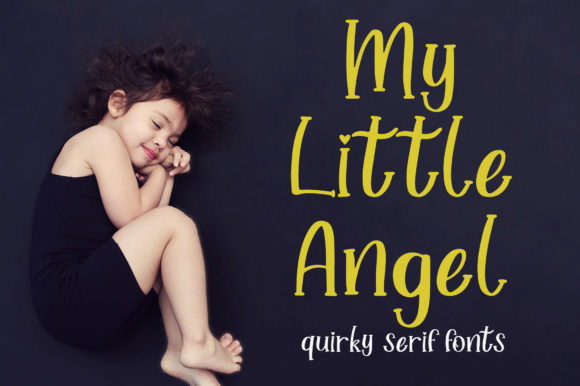
Journey into a world of whimsical enchantment with My Little Angel Font, a captivating script font brimming with undeniable charm. Experience the allure of its graceful curves and playful strokes that dance across your screen, evoking a sense of childlike wonder and unbridled imagination.
Crafted with meticulous precision by the talented hands of Choirulcreator, My Little Angel embodies the essence of enchanting boat lettering. Its elegant flourishes and whimsical details add a touch of maritime magic to any design, leaving an undeniable impression on all who behold it.
Whether you're a seasoned designer or just starting your creative adventure, My Little Angel Font will elevate your projects to new heights of artistry. Its effortless versatility makes it the perfect choice for a wide range of designs, from enchanting invitations and heartfelt letters to captivating social media posts and eye-catching marketing materials.
Immerse yourself in the boundless possibilities that await with My Little Angel Font. Let its whimsical strokes ignite your imagination and guide you to create truly extraordinary designs that capture the hearts of all who encounter them. Embrace the magic and let your creativity soar!